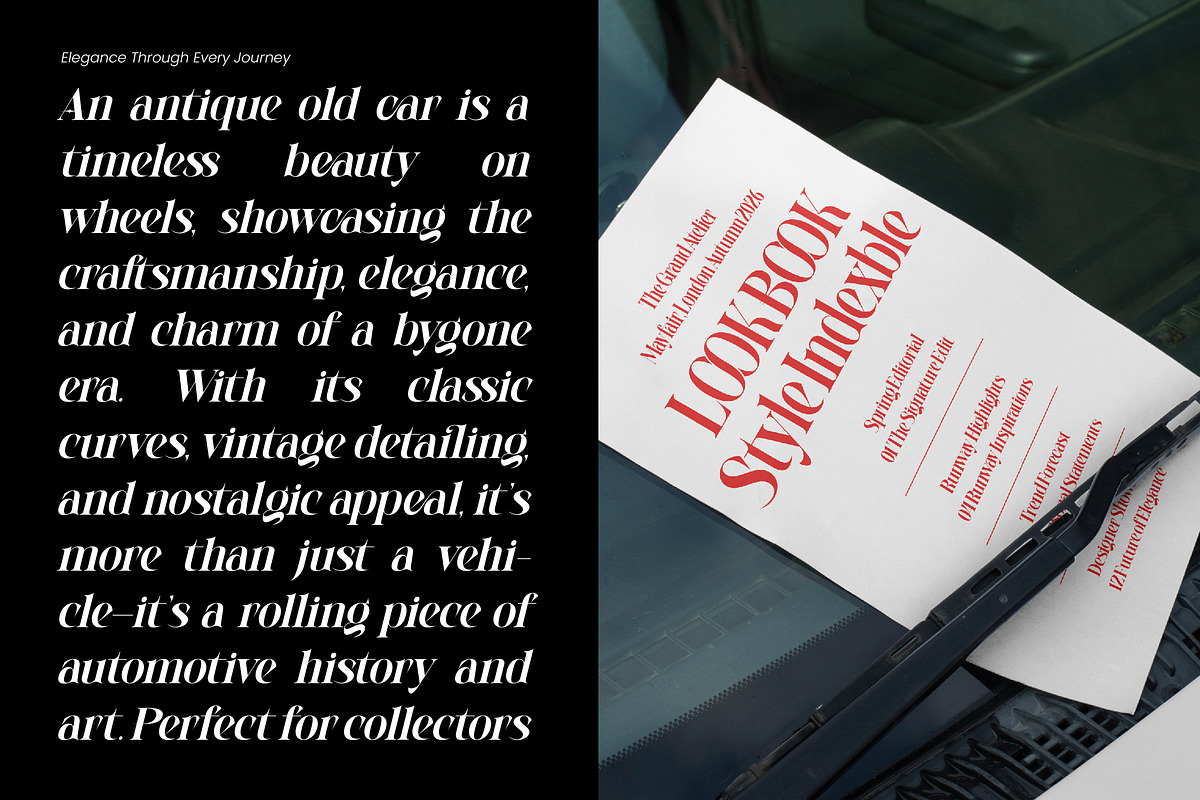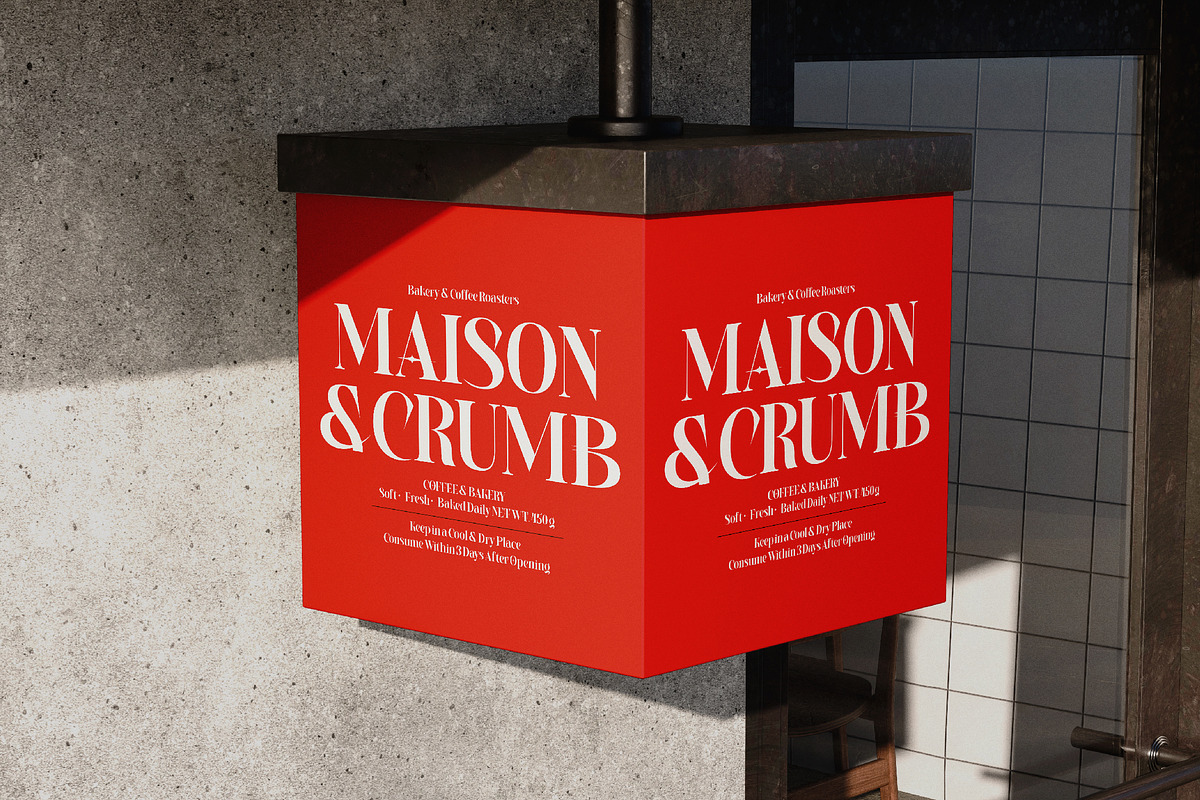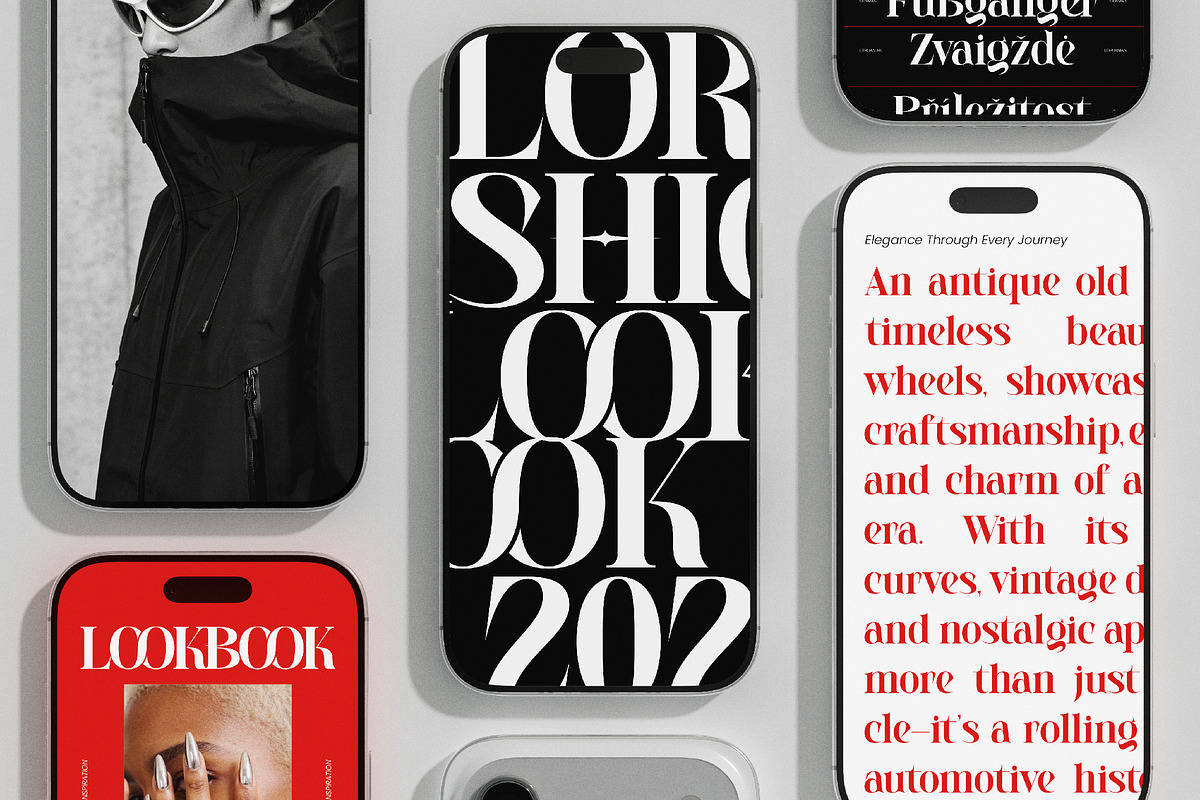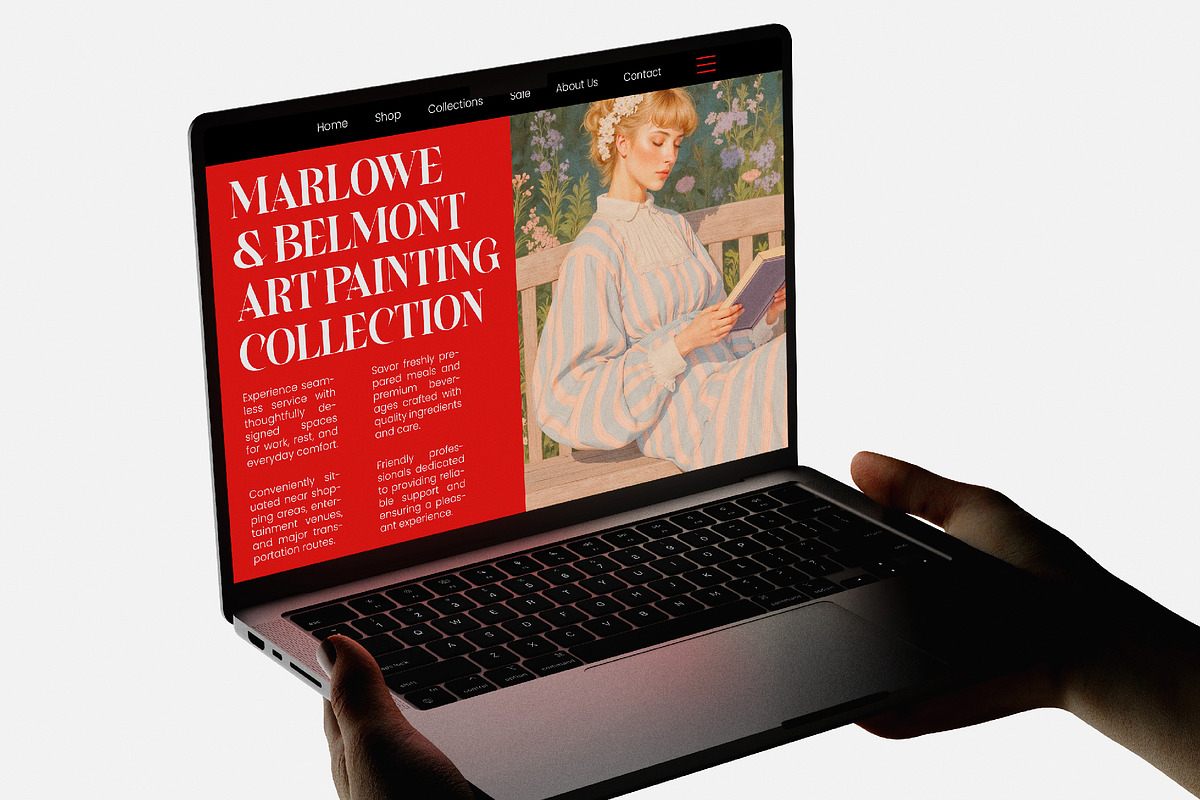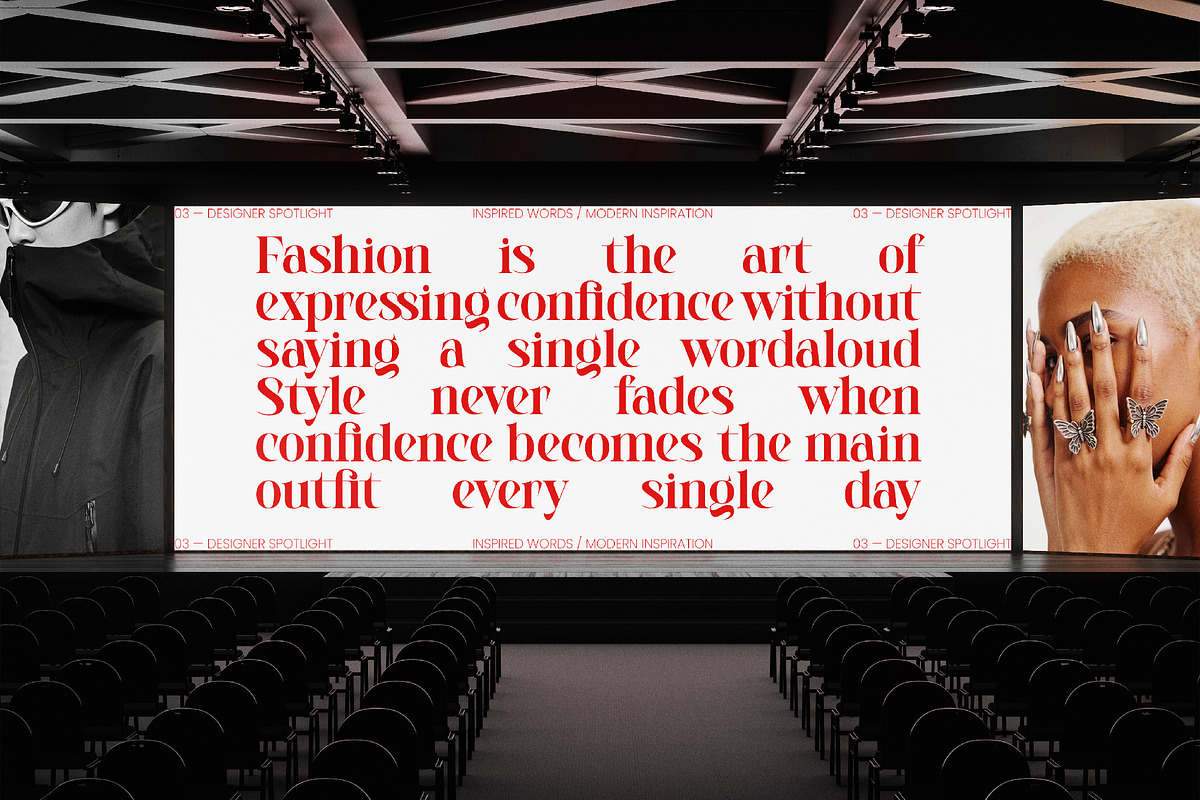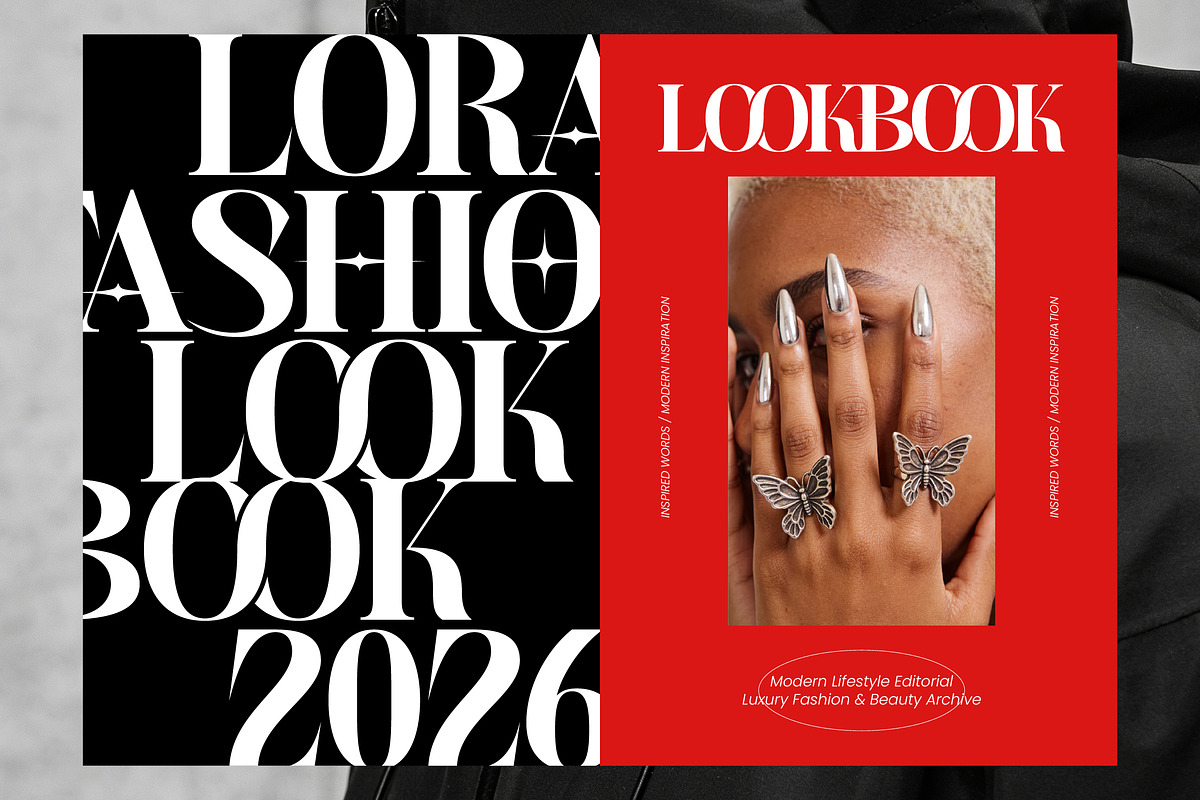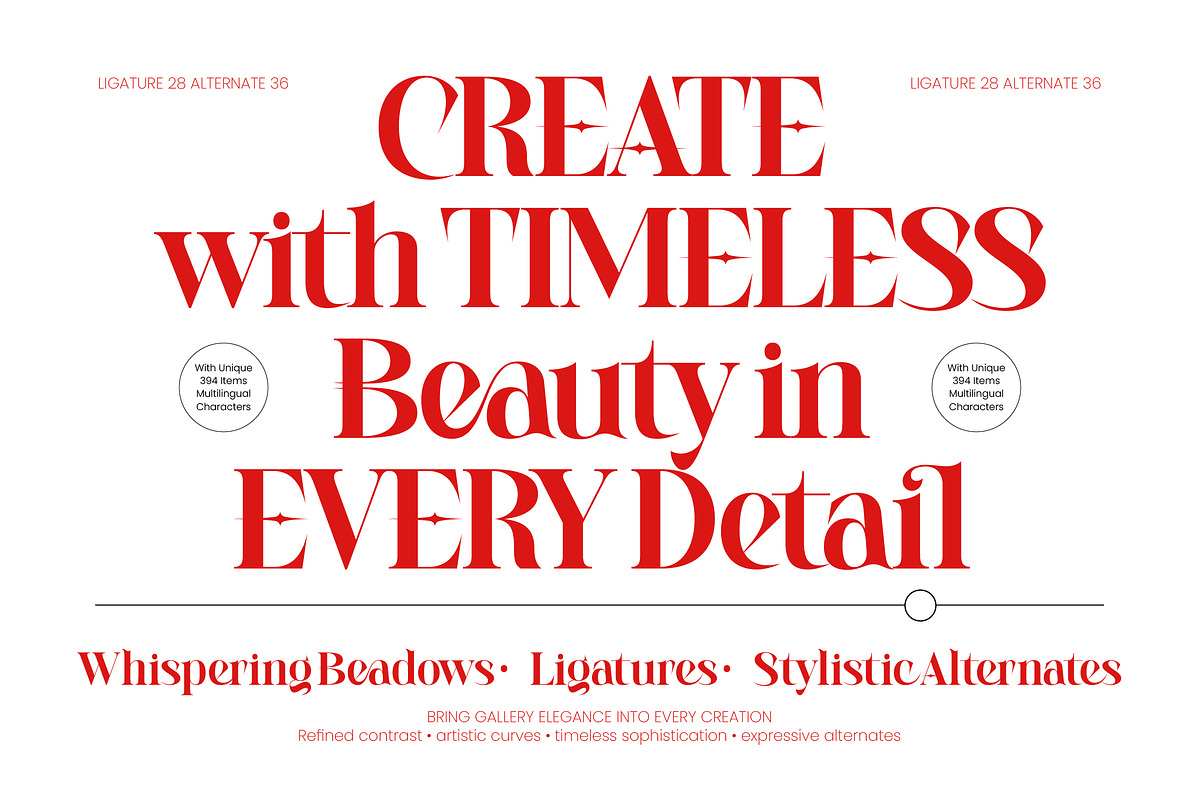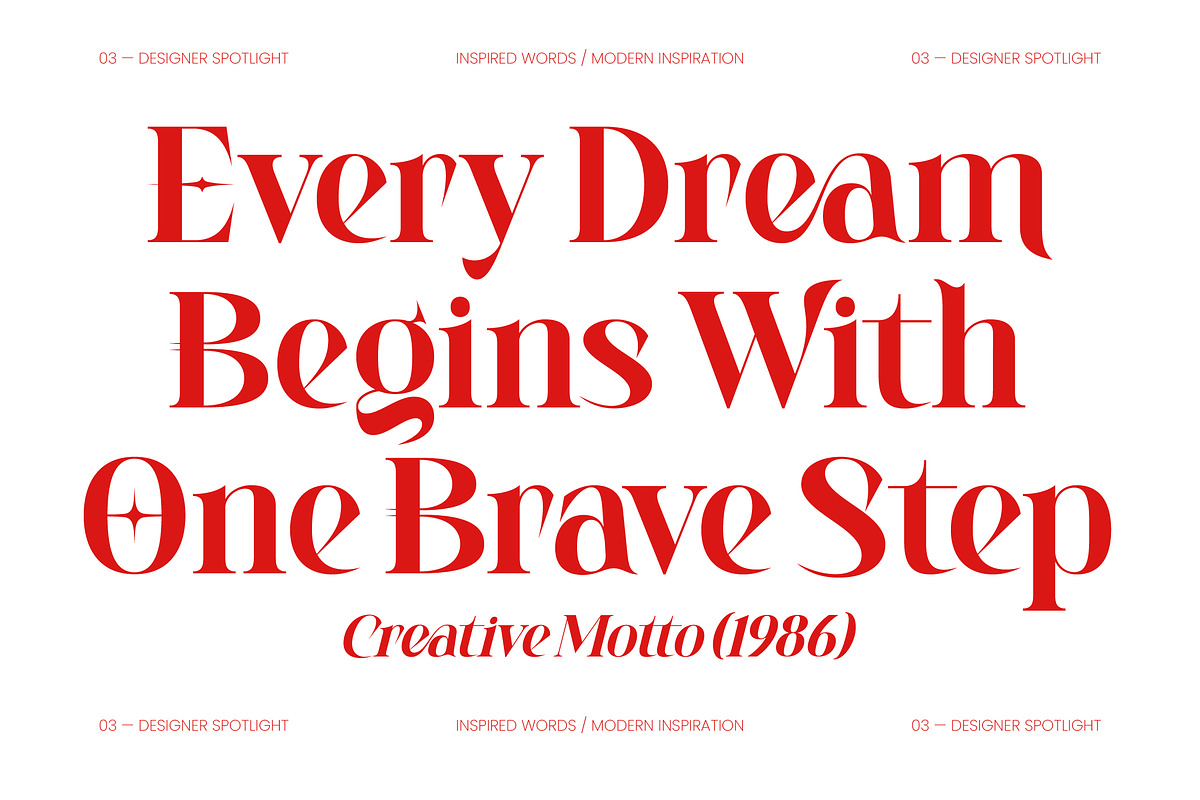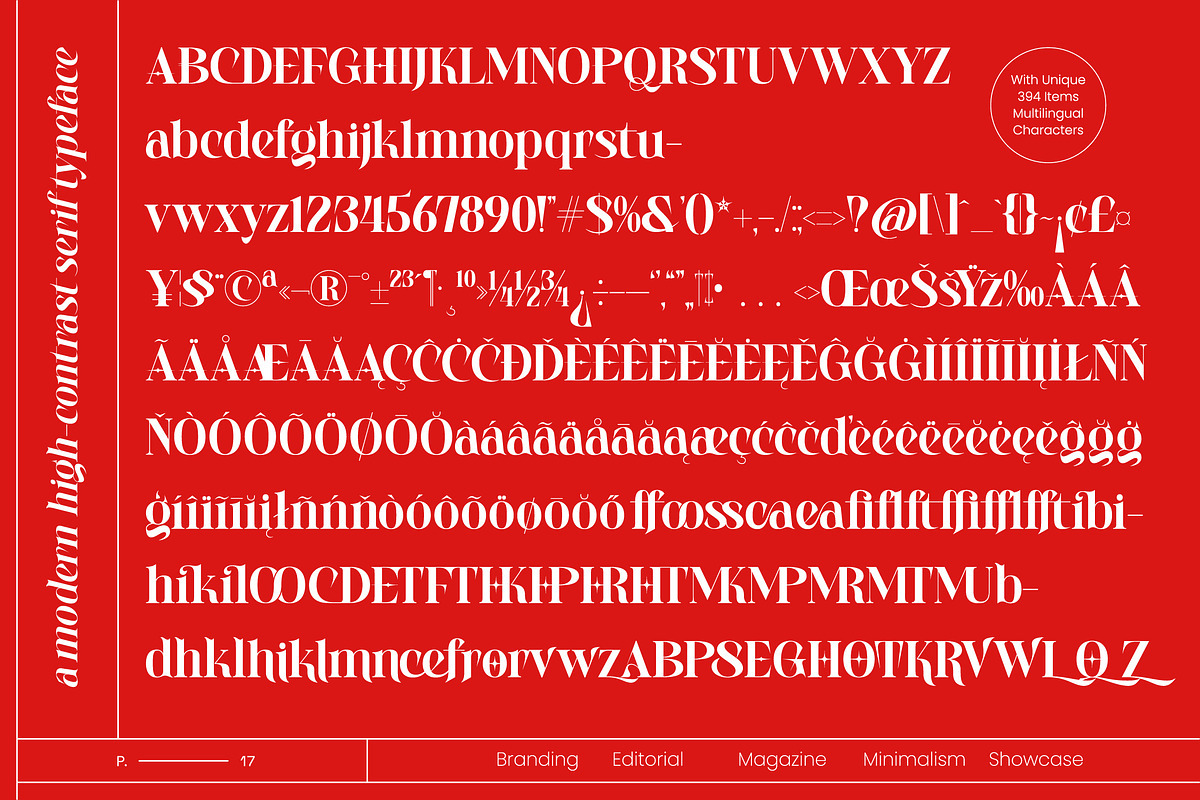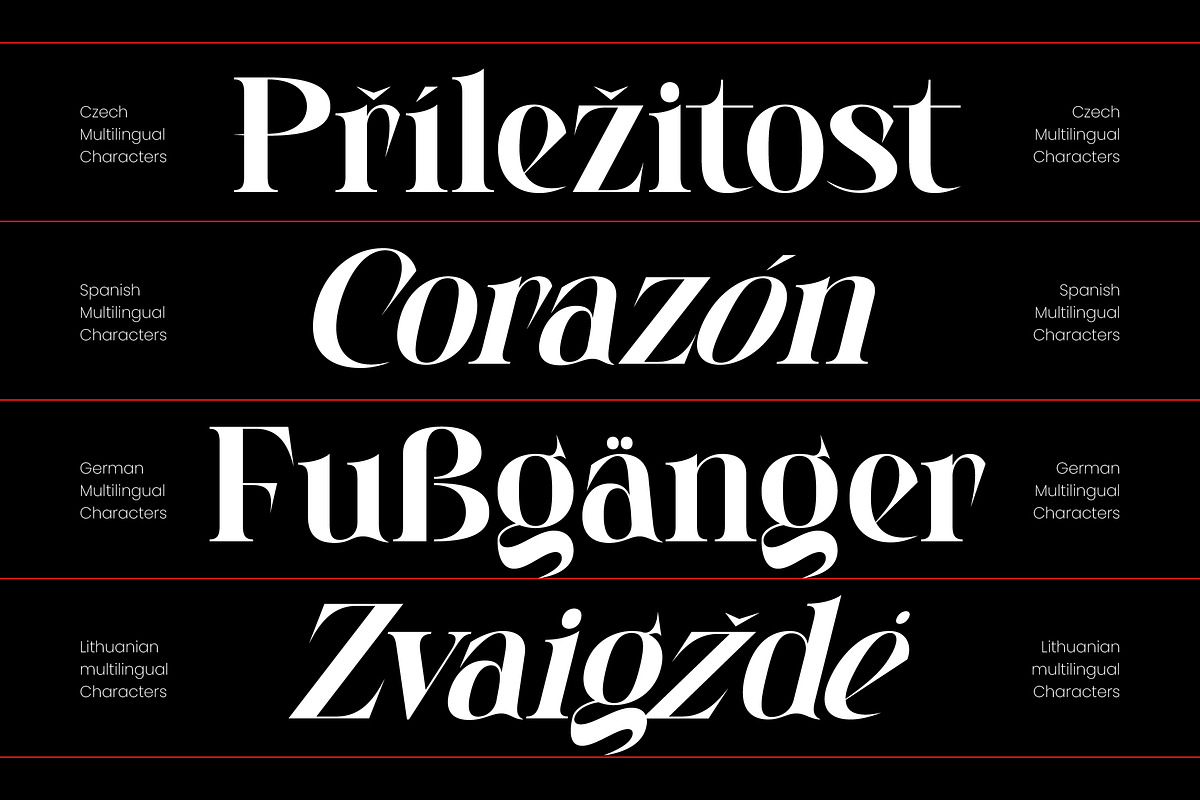
Whispering Beadows Modern Serif
**Whispering Beadows - Modern Serif , **Elevate your design projects with a touch of high-end sophistication and timeless elegance. Whispering Beadows - Modern Serif is a masterpiece of high-contrast typography, blending razor-sharp serifs with fluid, artistic curves to create a truly luxurious aesthetic. Its refined silhouettes and modern editorial feel make it an essential tool for designers seeking to convey prestige and gallery-level elegance in every composition.
Unlock unparalleled creative freedom with a vast array of bespoke typographic features. Whispering Beadows - Modern Serif provides a comprehensive toolkit including 28 custom ligatures and 36 expressive alternates, allowing for unique character combinations that mimic high-end custom lettering. These stylistic variations ensure that your headlines remain distinct and memorable, capturing attention through visual harmony and sophisticated detailing.
Expand your brand's reach with a typeface designed for a truly global audience and diverse linguistic needs. With its extensive multilingual support, Whispering Beadows - Modern Serif adapts seamlessly across global markets, making it incredibly versatile for international projects. Featuring over 394 unique characters, this font ensures that your message remains consistent and impactful regardless of the language, maintaining its premium quality across all borders.
Achieve a flawless finish across a diverse range of premium applications and high-stakes branding initiatives. Whispering Beadows - Modern Serif is perfect for luxury branding, fashion editorial design, high-end packaging, and upscale wedding stationery. Whether utilized for bold magazine headlines or sophisticated logo marks, this font delivers a commanding presence that defines the pinnacle of contemporary style.